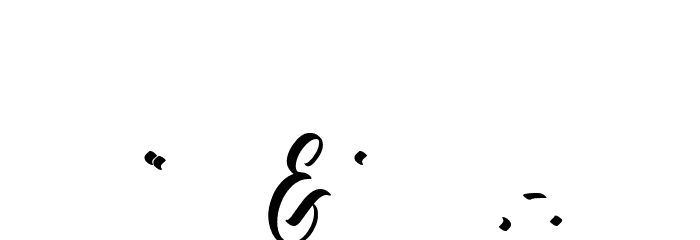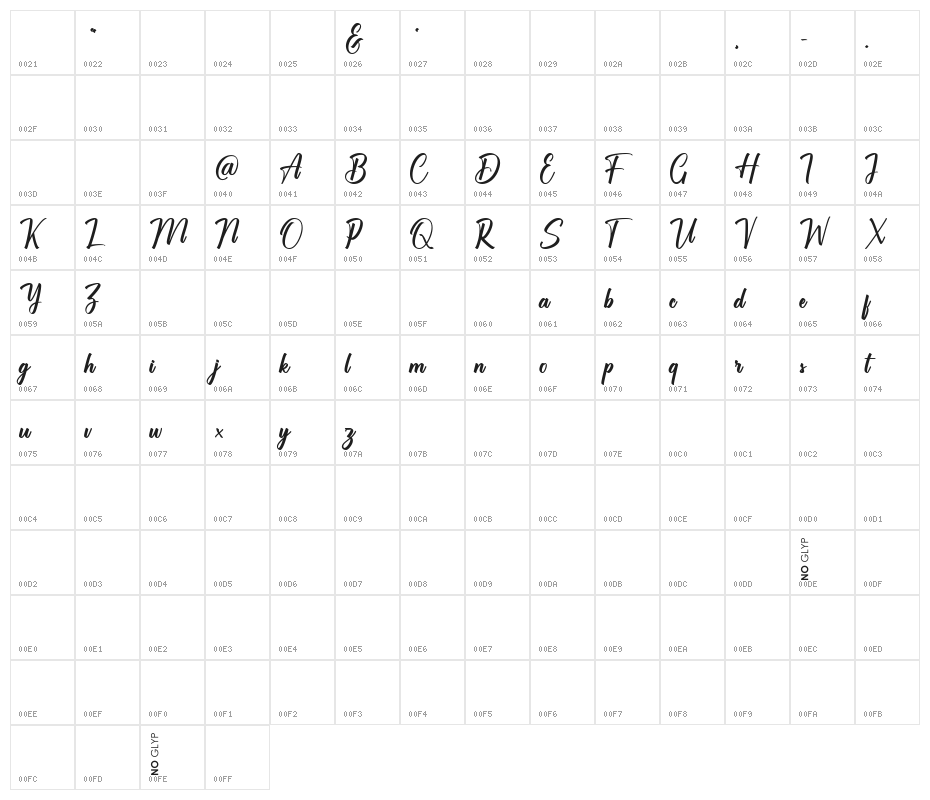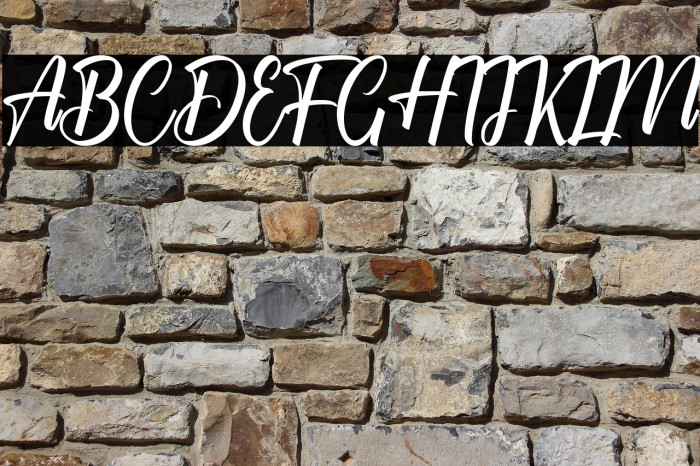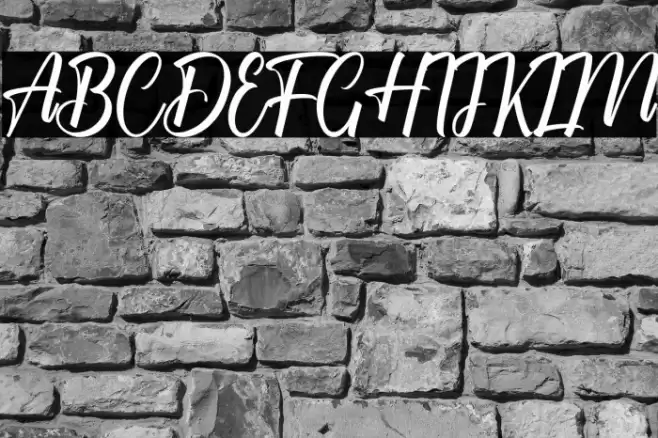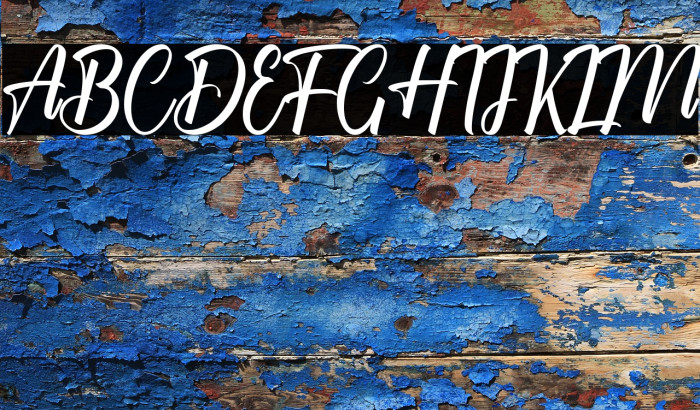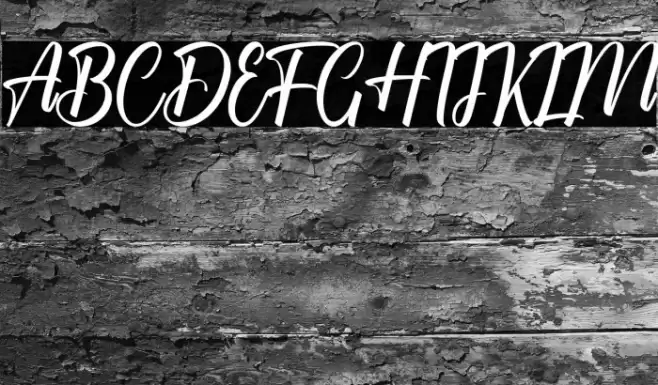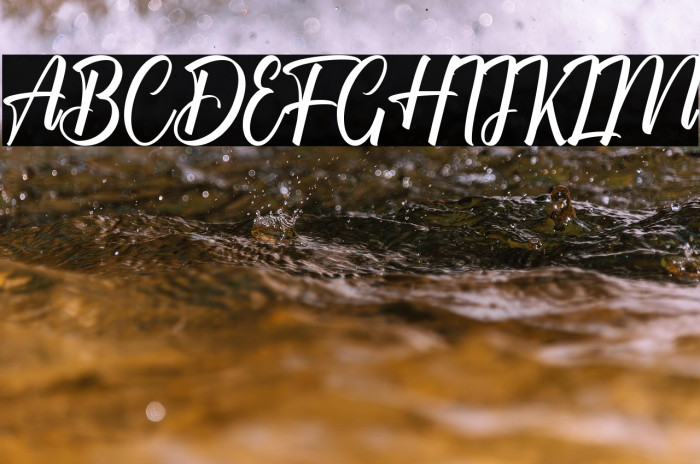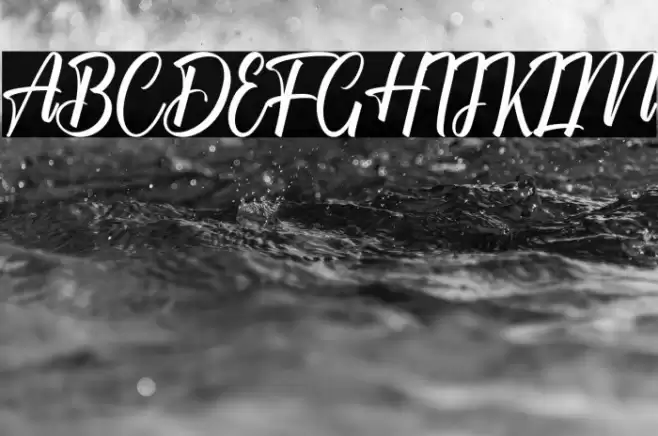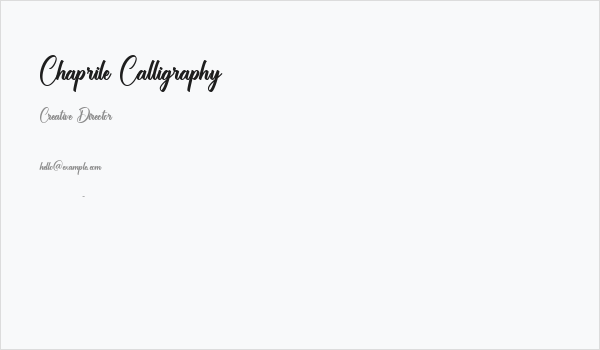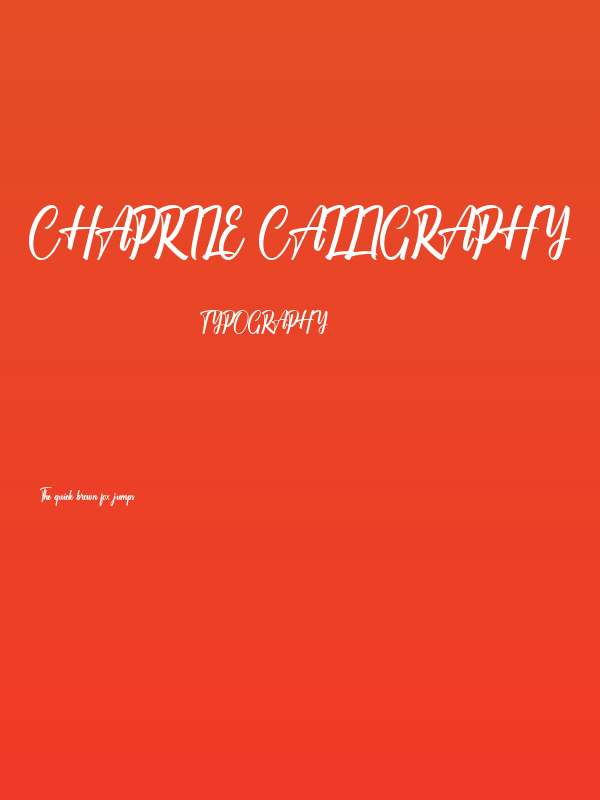
Chaprile Calligraphy Font
Chaprile Calligraphy Description
This elegant calligraphy font features a fluid and graceful design, characterized by its sweeping curves and intricate details. The uppercase letters exhibit a sophisticated flair, with elongated strokes and a slight slant that adds a dynamic feel. The lowercase letters maintain a consistent flow, complementing the uppercase with their smooth, connected forms. The numerals and special characters are crafted with the same attention to detail, ensuring a cohesive look throughout. This font is perfect for adding a touch of elegance and sophistication to any project.
| Proposed Projects | Ideal for wedding invitations, elegant branding, greeting cards, and decorative quotes. |